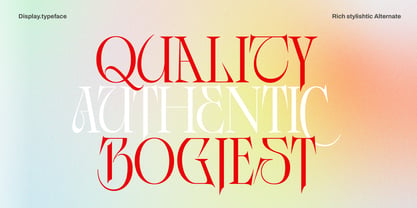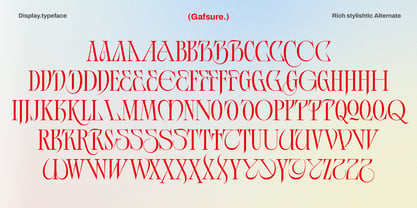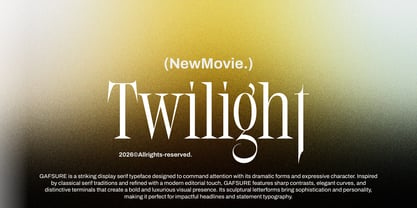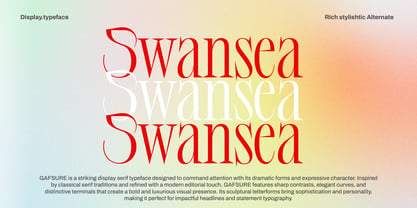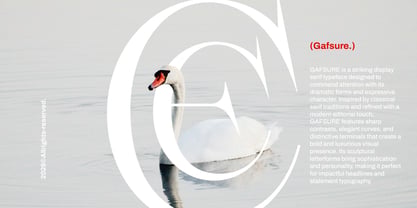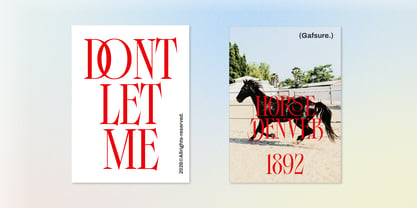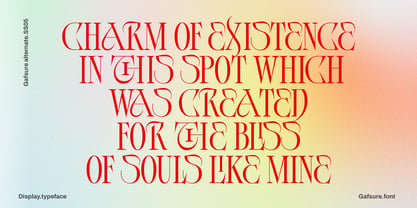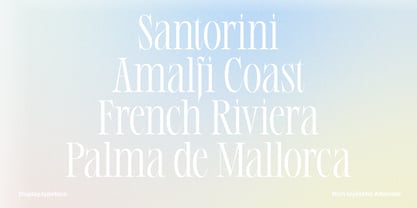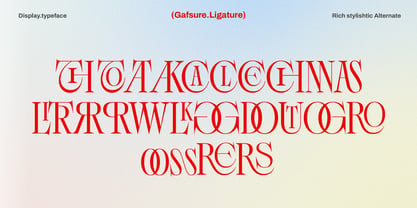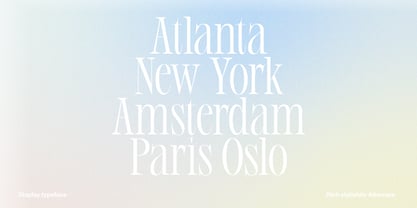
Gafsure
by Jolicia Type
The Gafsure Font Family was designed by Laire Banyu and published by Jolicia Type. Gafsure contains 1 styles. More about this family
GAFSURE is a striking display serif typeface designed to command attention with its dramatic forms and expressive character. Drawing inspiration from classical serif traditions and enhanced with a modern editorial touch, GAFSURE showcases sharp contrasts, elegant curves, and distinctive terminals that create a bold and luxurious visual presence. Its sculptural letterforms exude sophistication and personality, making it perfect for impactful headlines and statement typography. What truly sets GAFSURE apart is its rich collection of stylish stylistic alternates, allowing designers to explore multiple letter variations and craft unique typographic compositions. These alternates introduce decorative swashes, unconventional shapes, and refined details that elevate the font’s artistic expression while maintaining balance and readability. GAFSURE is ideal for a variety of applications, including branding, editorial layouts, luxury packaging, fashion campaigns, logos, posters, and high-end visual identities. Whether utilized in large display settings or creative typographic layouts, this typeface delivers a bold yet elegant aesthetic that captures attention and adds a distinctive voice to any design project.
Designers: Laire Banyu
Foundry: Jolicia Type